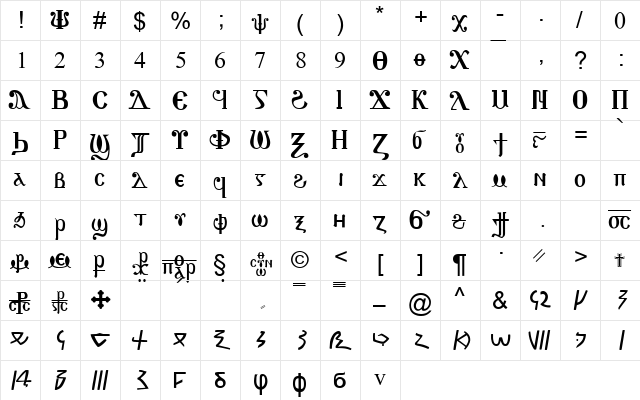
CS Avva Shenouda Regular
Design Context for CS Avva Shenouda Typeface
CS Avva Shenouda offers clean, dependable letterforms without strong stylistic allegiance, making it a practical choice for designers who need flexibility.